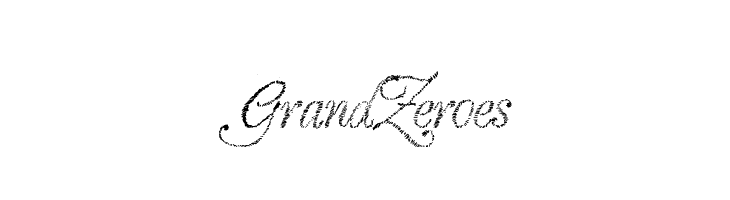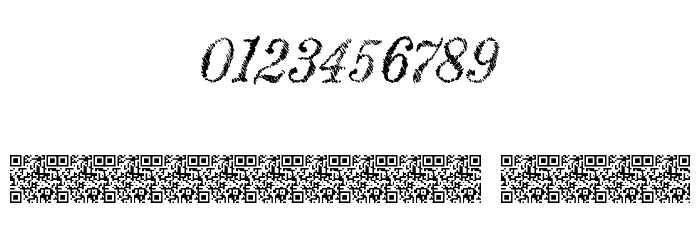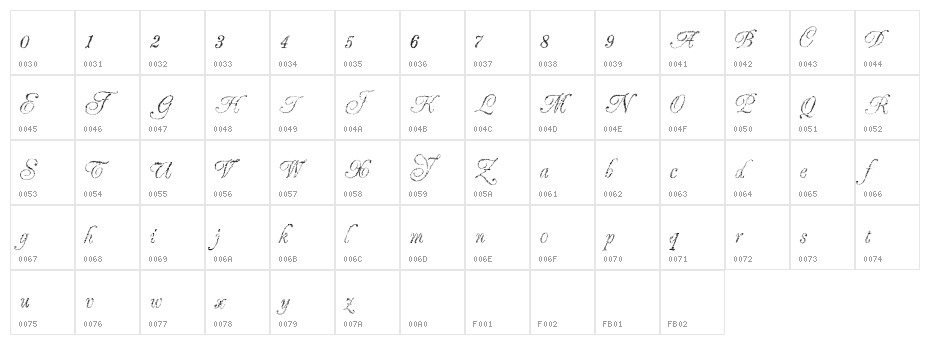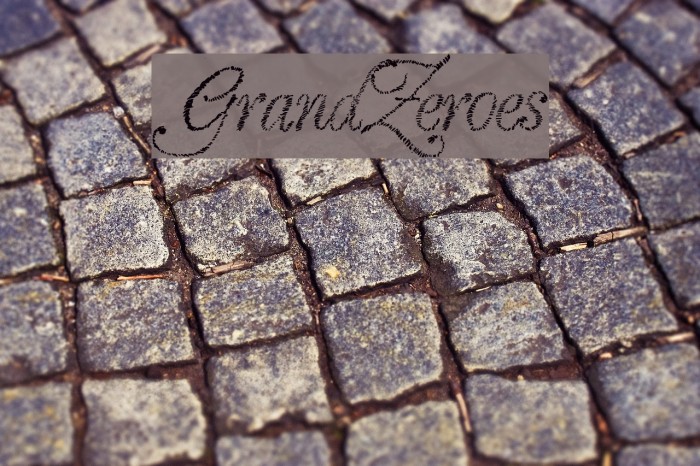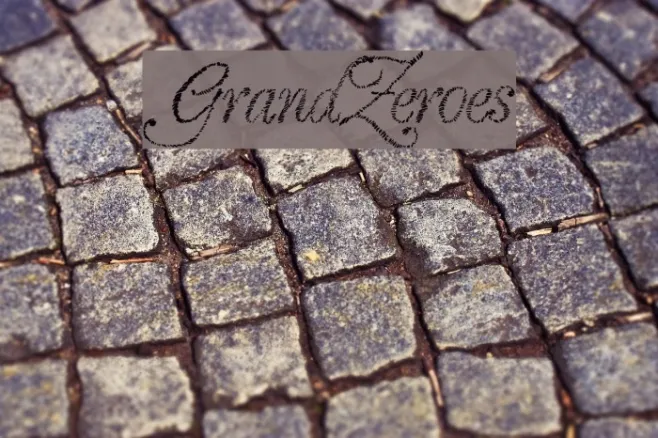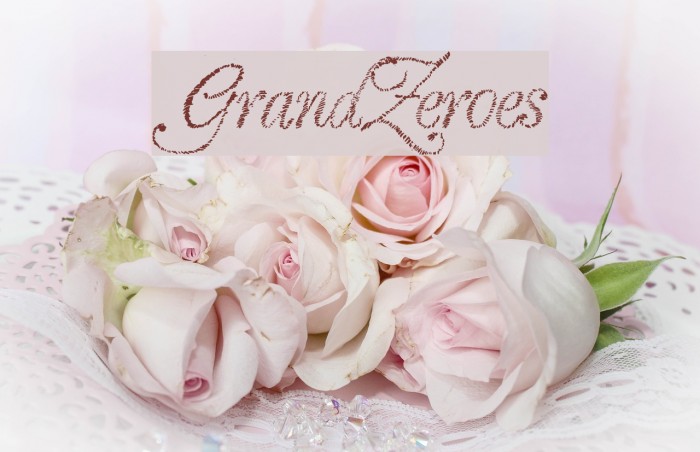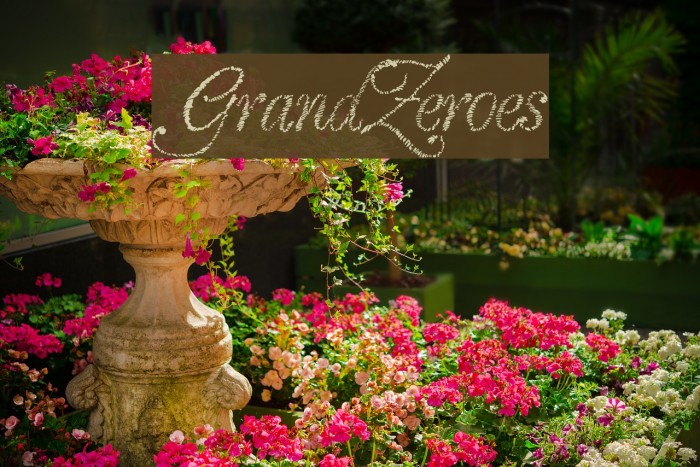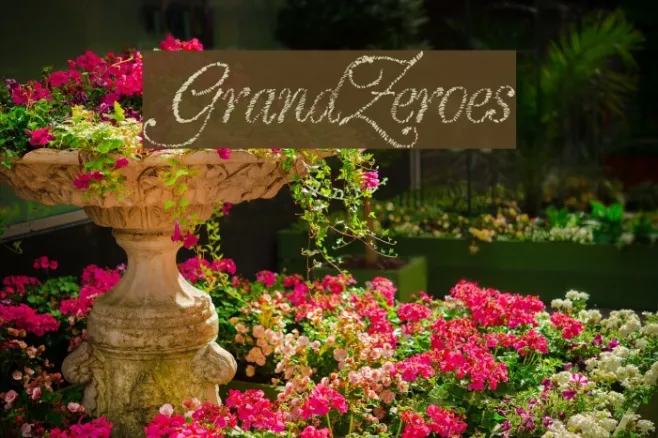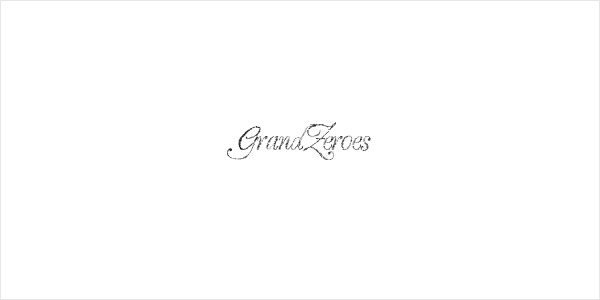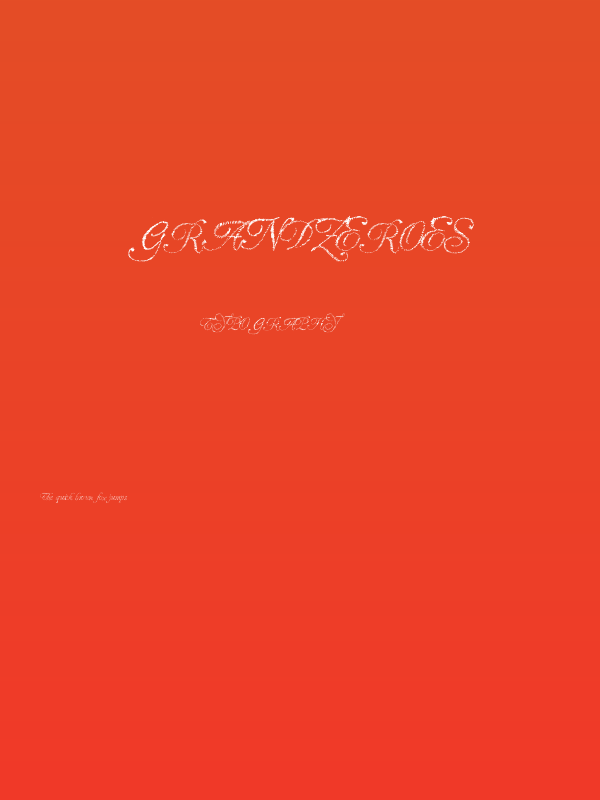
GrandZeroes Font
GrandZeroes Description
This elegant script font features a flowing, cursive style with intricate detailing. The characters are interconnected, creating a seamless and sophisticated appearance. Each letter is adorned with delicate swirls and flourishes, adding a touch of luxury and refinement. The uppercase letters are particularly ornate, with exaggerated loops and curves that enhance their decorative appeal. The lowercase letters maintain a consistent style, ensuring readability while preserving the font's artistic flair. The numbers and special characters are designed to match the overall aesthetic, making this font suitable for a variety of creative applications.